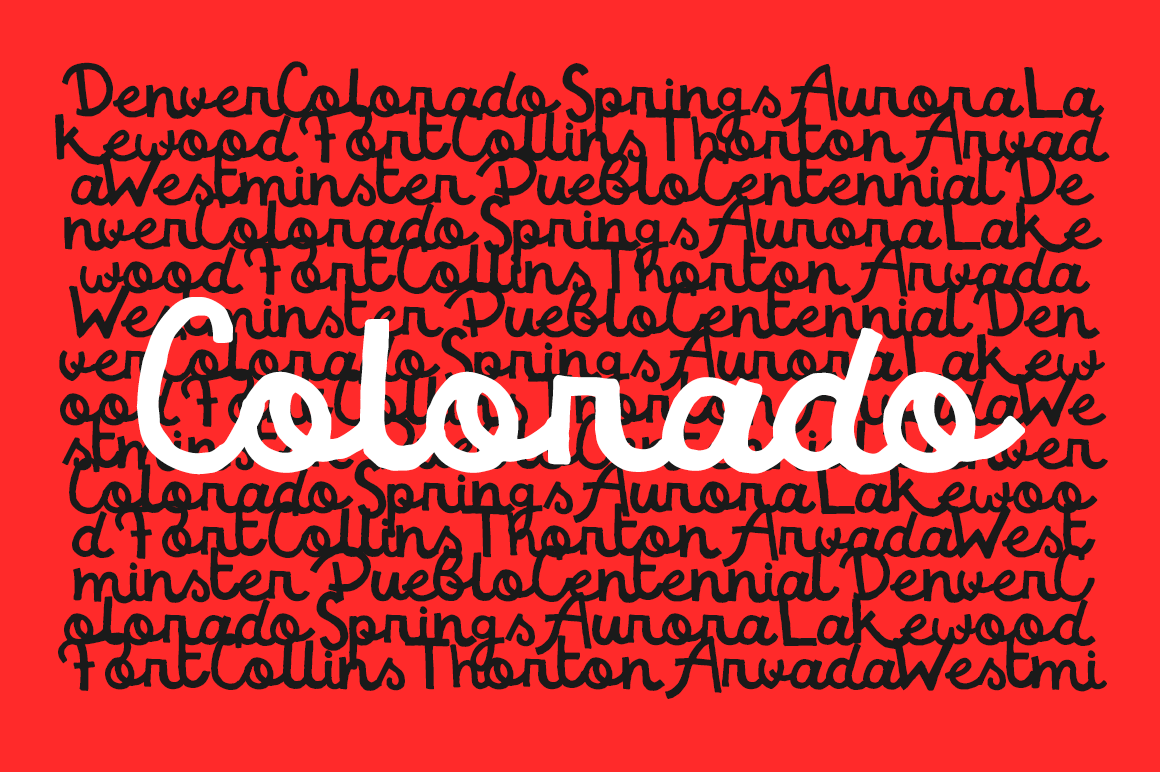
Colorado — Script Font
Colorado Script
A new and amazing script font perfect for vintage style for your designs, what is better than that? Well this font has it all. You just need to give it a try below here and you gonna love it for sure my friend ;D